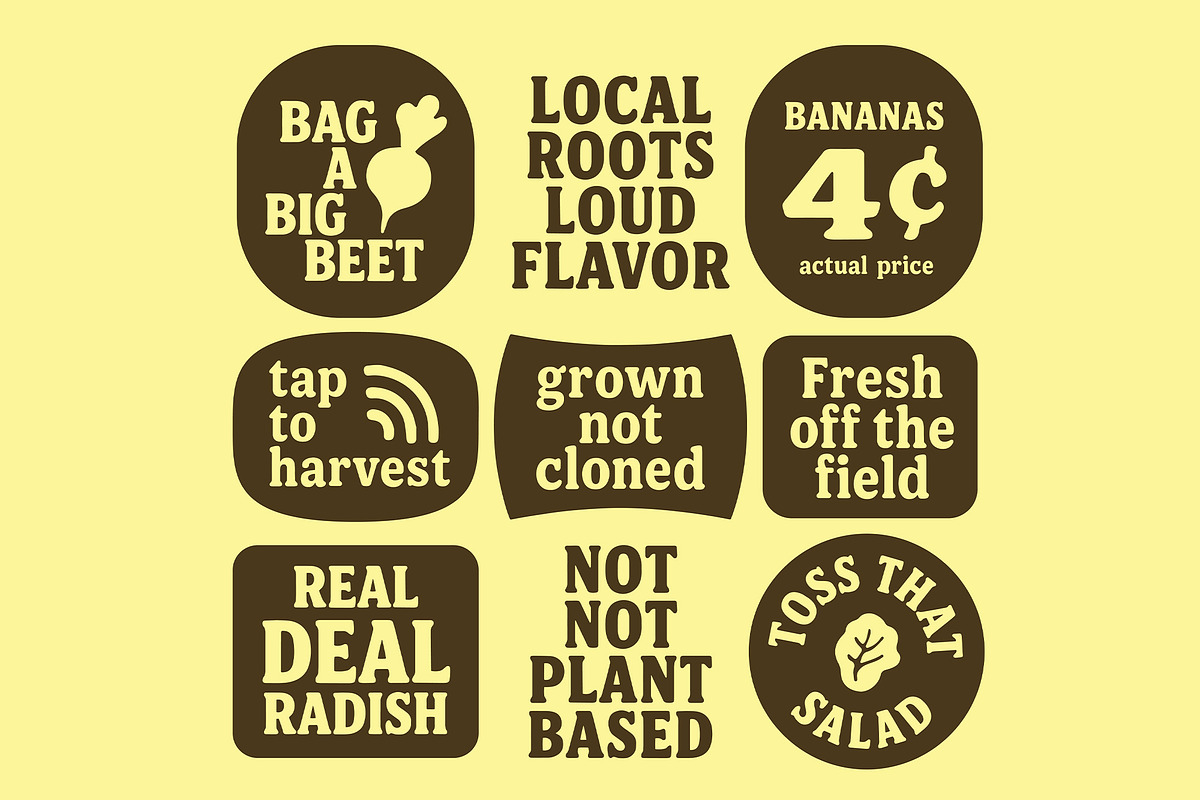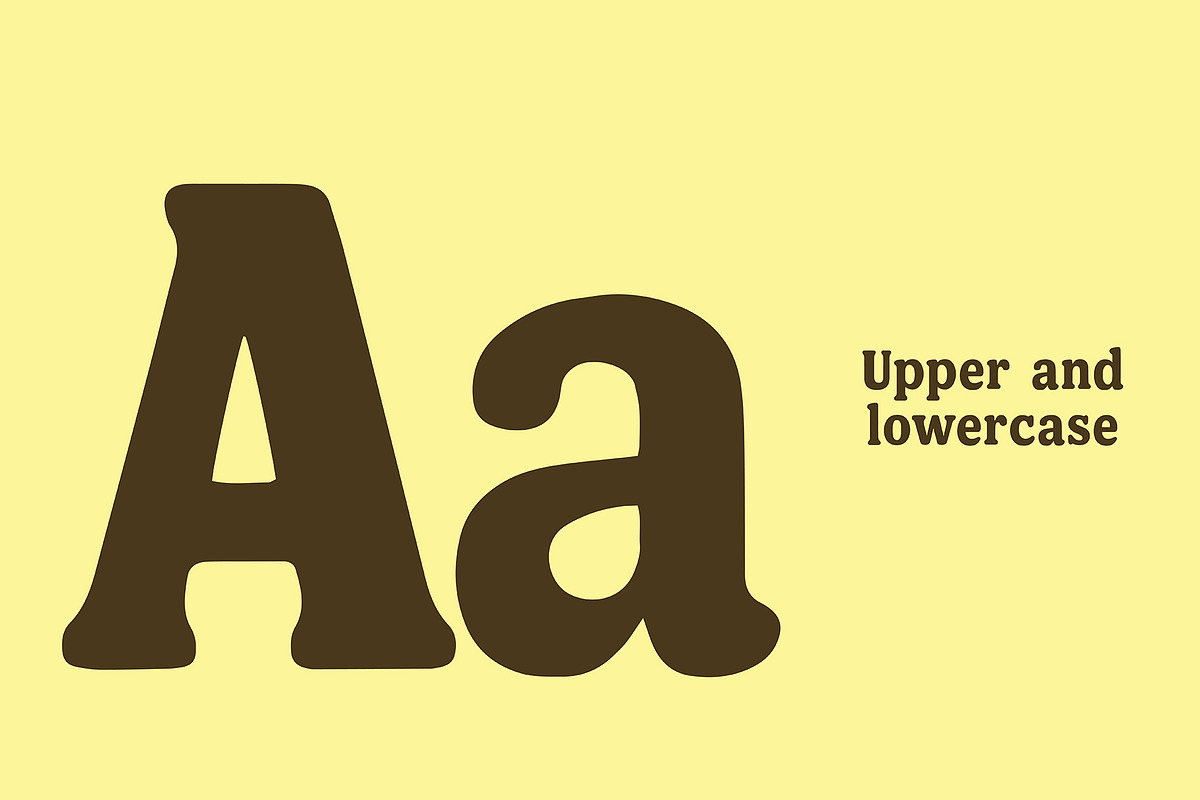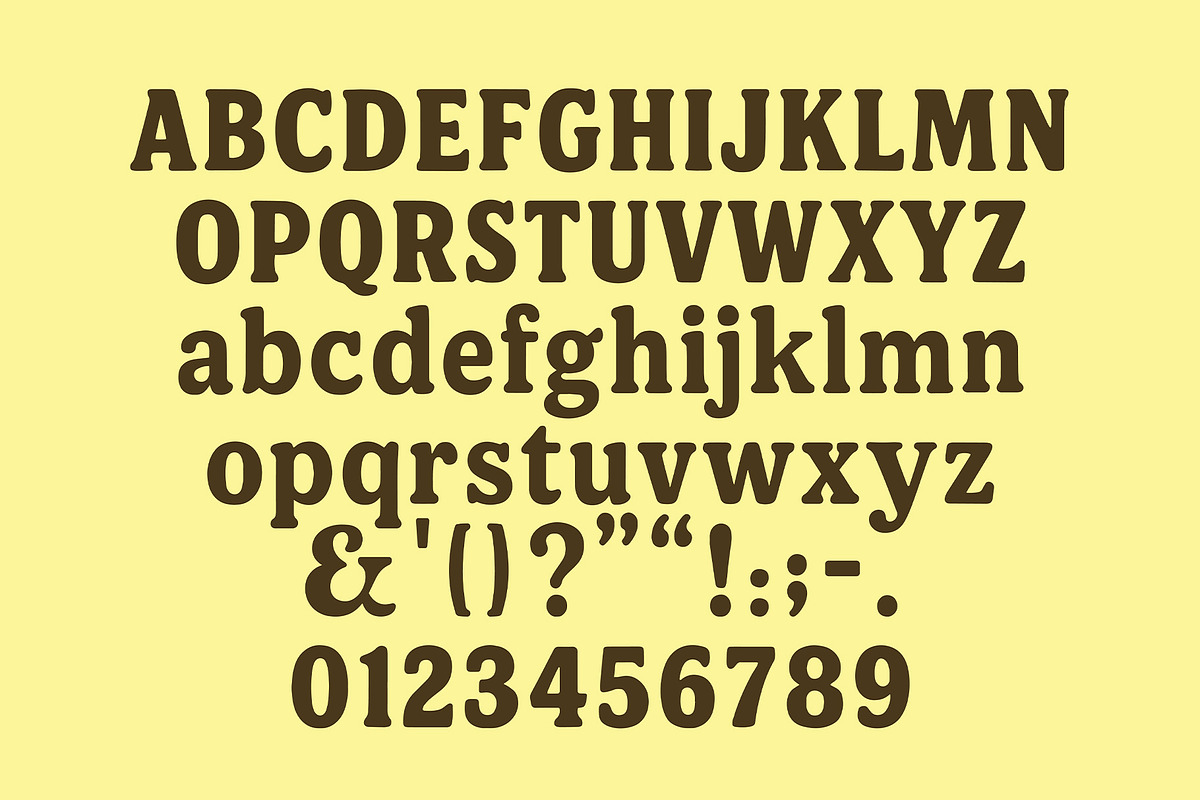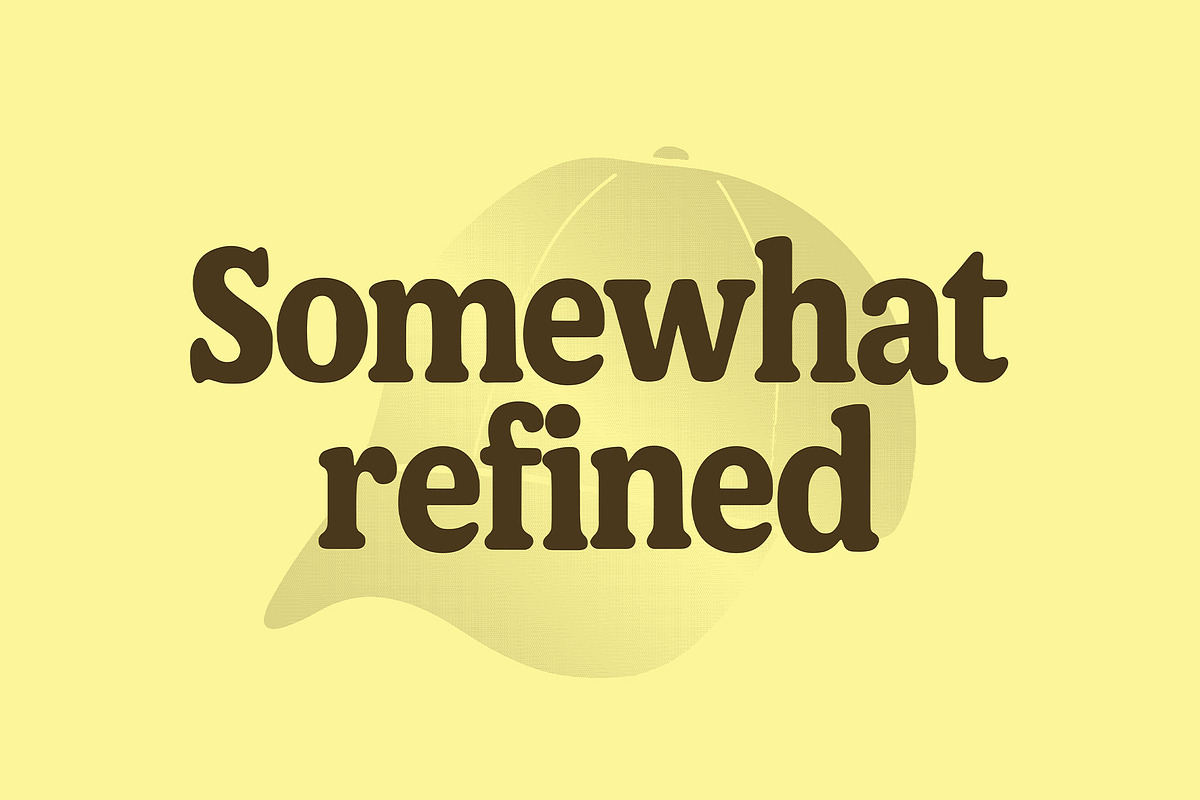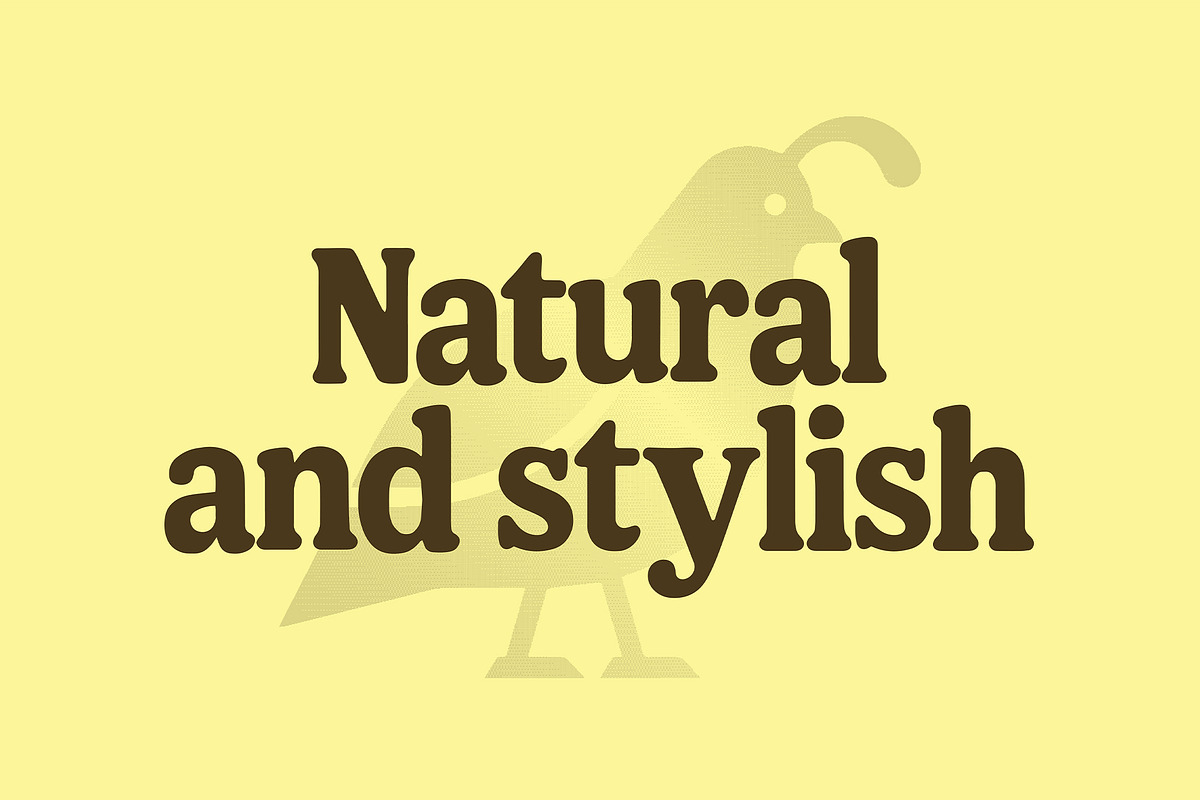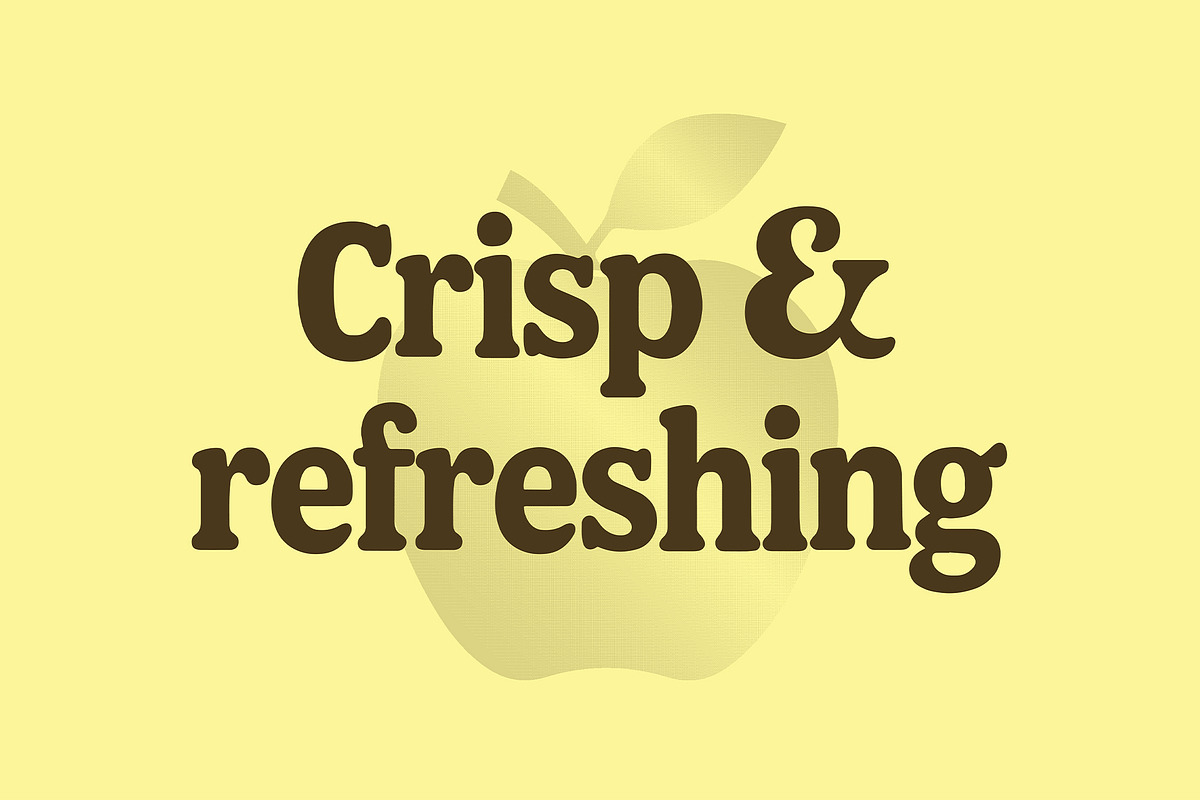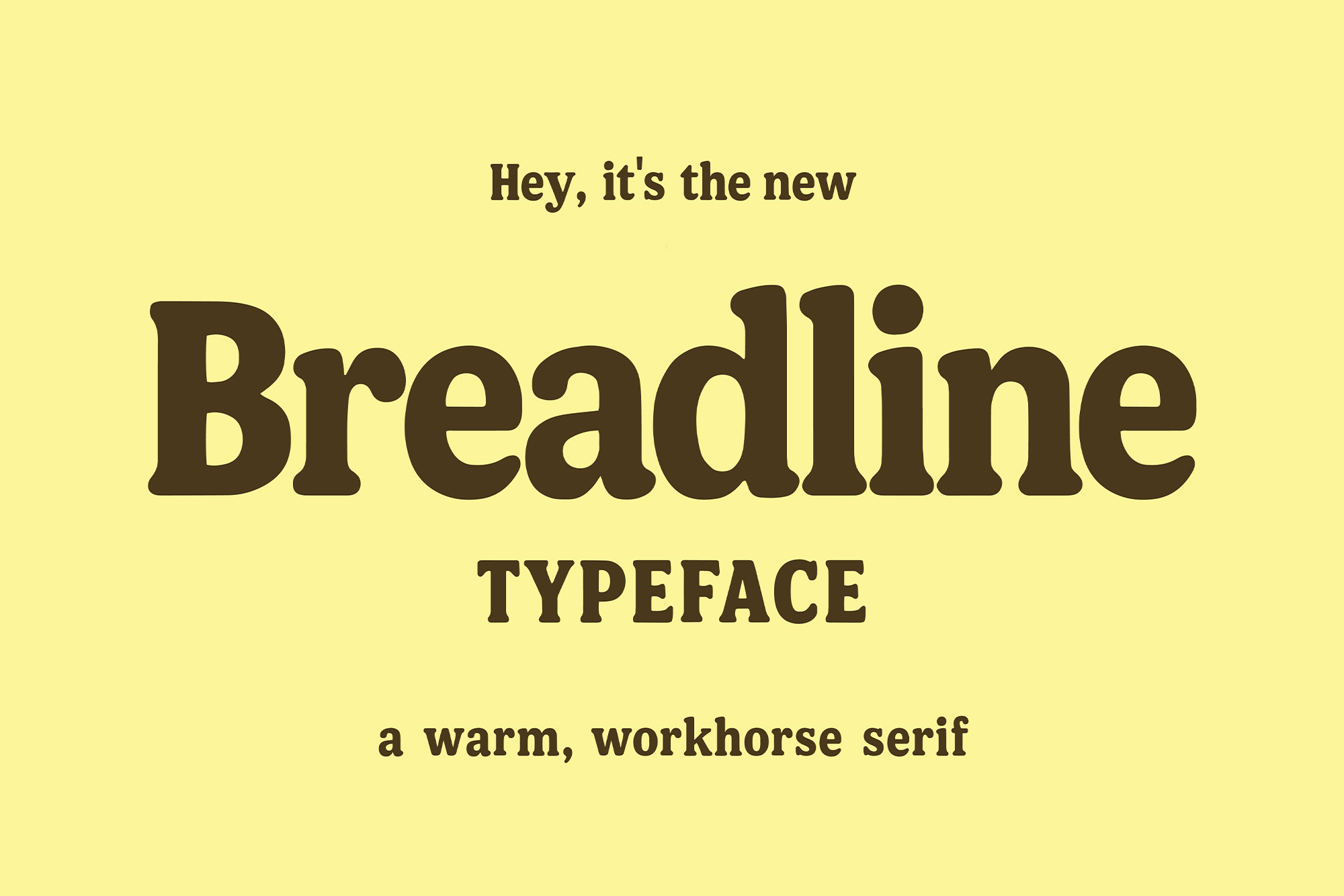
Breadline - Retro display typeface
Breadline is a hand-drawn serif font features both uppercase and lowercase characters with soft, rounded edges and vintage charm. Designed for standout logos, packaging, signage, and branding projects, it blends retro warmth with refined simplicity. Perfect for designers seeking a unique, approachable serif typeface with nostalgic appeal.